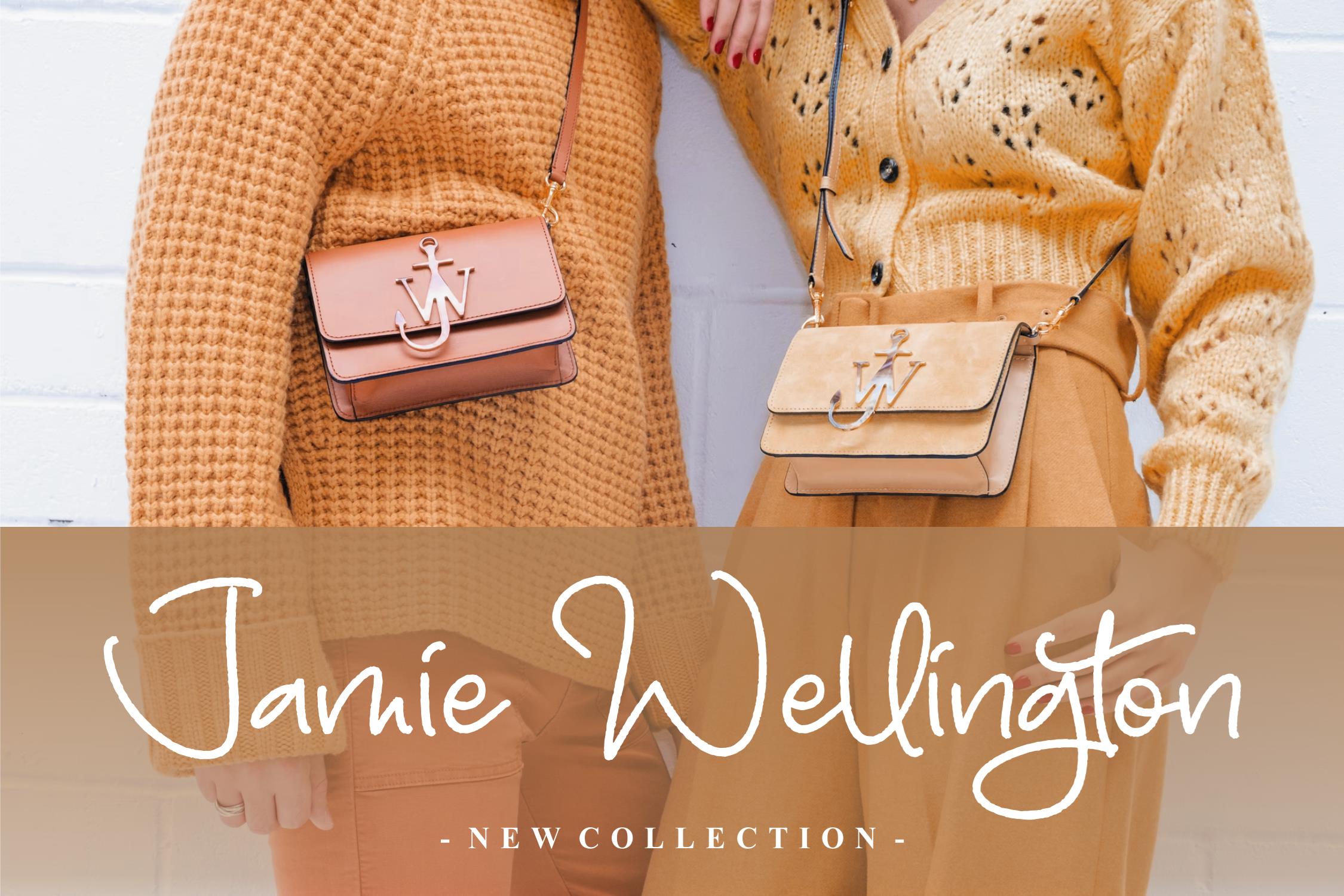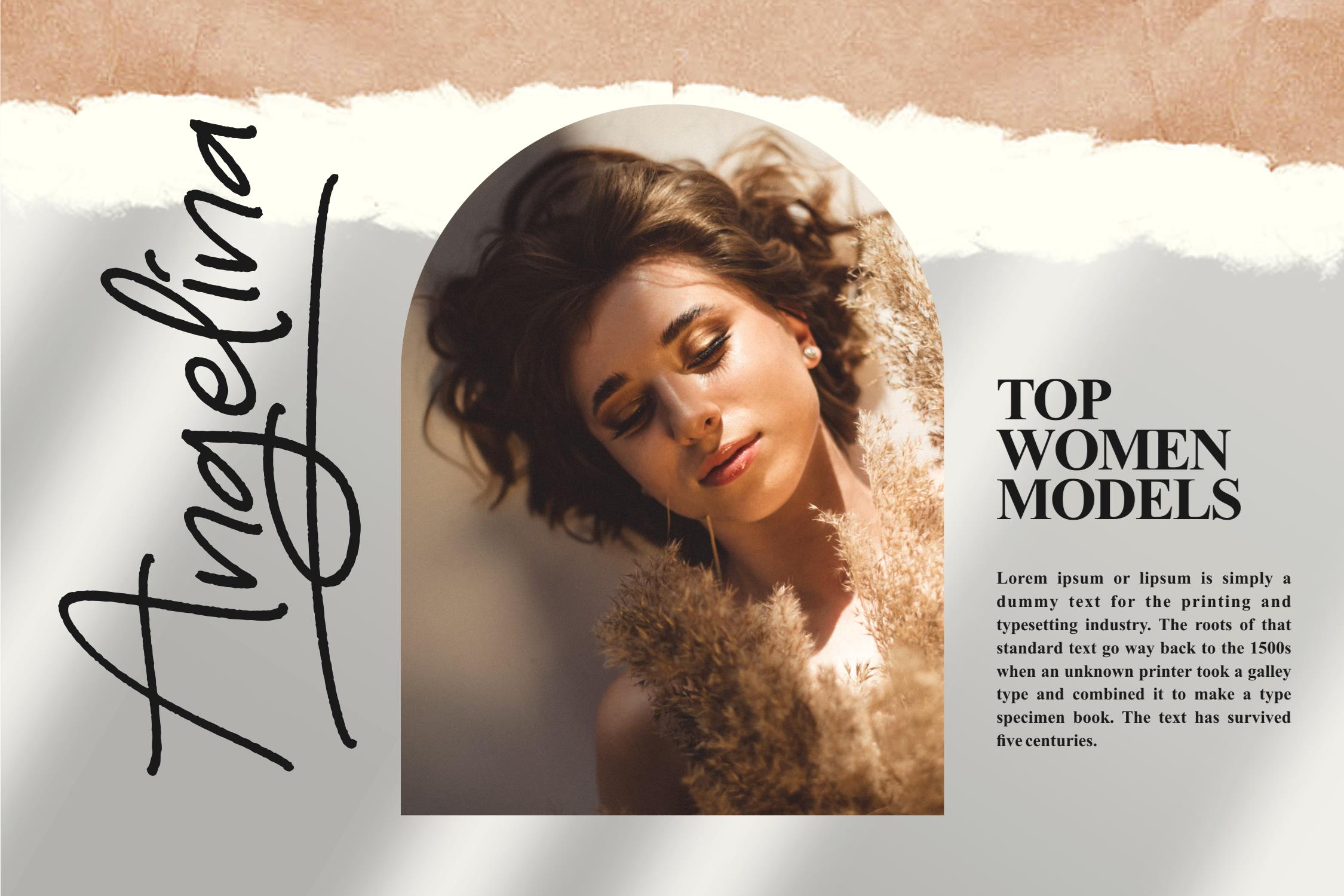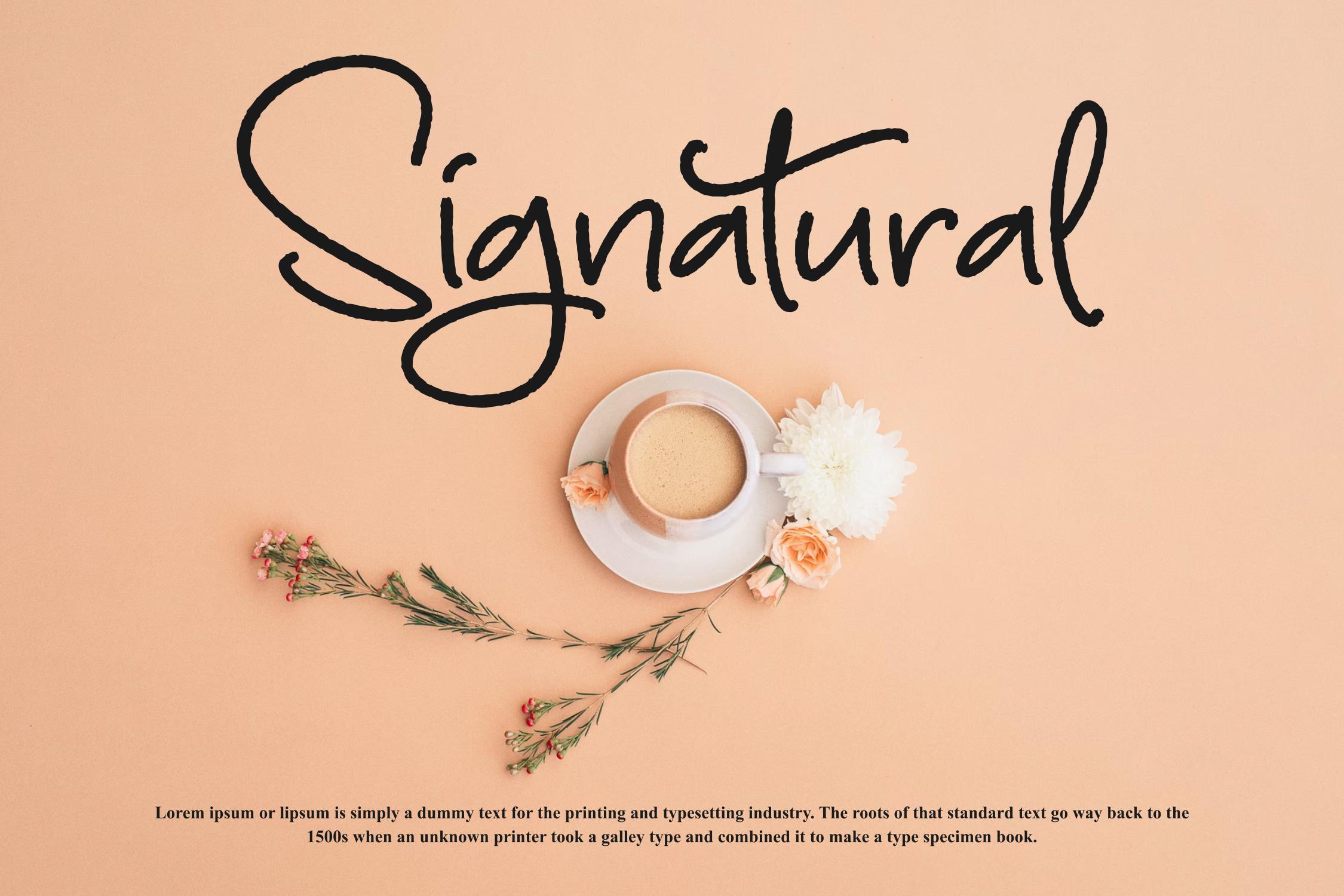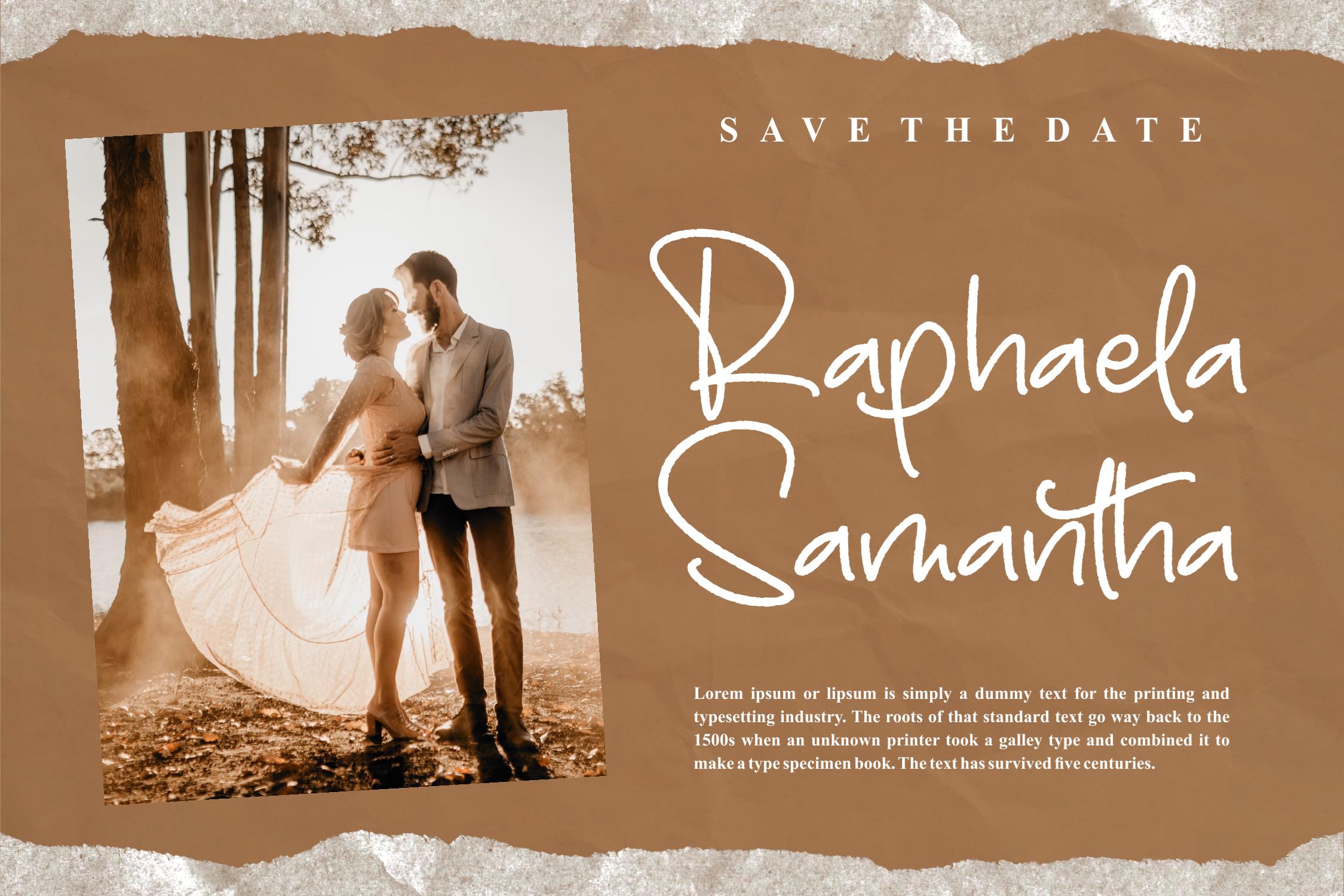
Georgia Angely Font
Georgia Angely Font – Monoline Signature Font , from Letterfabric Studio, is a suitable for any projects such as: logos, branding projects, homeware designs, product packaging, mugs, quotes, posters, shopping bags, t-shirts, book covers, name card, invitation cards, greeting cards, label, photography, watermark, special events, and all your other lovely projects that need a beautiful script taste.